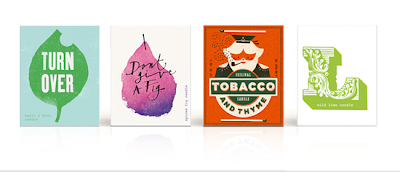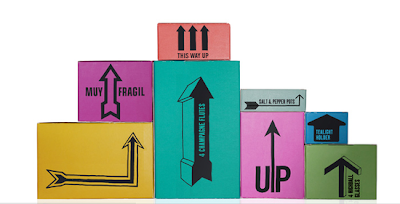
Wow, this packaging is some of the most exciting I've seen in a while! It was designed by Pearlfisher for Jamie Oliver's new Jme line of food and kitchen products. I love the playful use of language and type and the vintage-meets-contemporary feel.via the Dieline